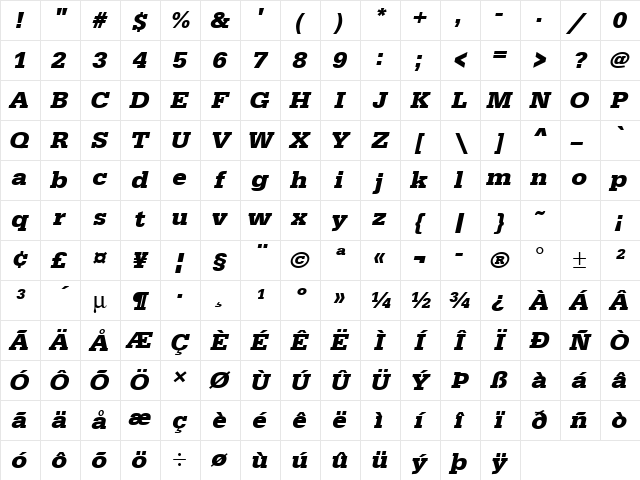
Complete URWEgyptienneTWid Bold Oblique glyph index. Displaying only characters natively supported by URWEgyptienneTWid Bold Oblique font.
URWEgyptienneTWid is a composed and adaptable typeface that performs quietly and consistently across a wide range of design contexts. The slanted form adds forward momentum and visual energy. Its bold stroke weight gives it real presence on the page.